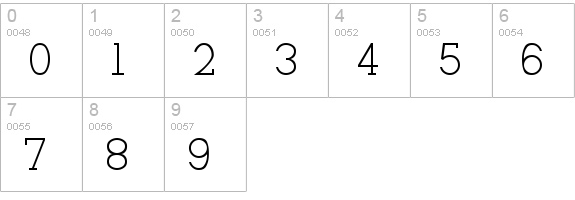
RSStymie Font Details
Introducing RSStymie font, a versatile and modern typeface that is perfect for a wide range of design projects. With its clean lines and stylish appearance, RSStymie font exudes professionalism and sophistication. Whether you are creating a sleek logo, elegant branding materials, or eye-catching posters, this font will elevate your designs to the next level. One of the best things about RSStymie font is that it is available for free download at FontsMarket.com. That's right, you can access this high-quality font without spending a dime. With its easy accessibility and stunning design, RSStymie font is a must-have addition to any designer's toolkit. Don't miss out on the opportunity to enhance your projects with the distinctive charm of RSStymie font. Download it for free today and take your designs to new heights!